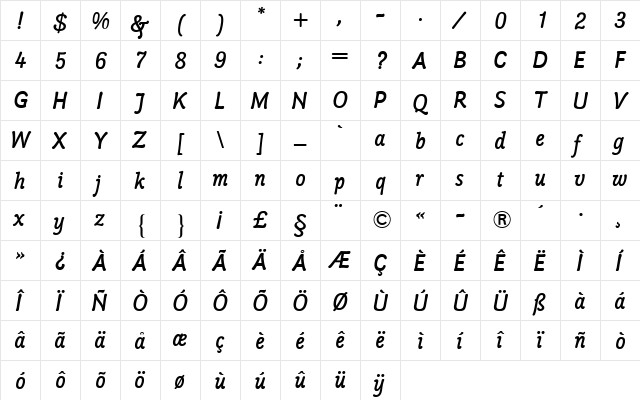
Poppl-College One BQ Medium
Design Context for Poppl-College One BQ Typeface
Poppl-College One BQ has the bold swagger of sports branding: strong, assertive letterforms designed to dominate headlines and jerseys alike.
A natural choice for gym brands, fantasy sports, jersey lettering, and action-driven headlines.
Font Pairing: Use alongside a condensed or geometric sans for supporting copy — keep the pairing bold, functional, and free of ornament.
Pro Tip: Use Poppl-College One BQ in all-caps headlines where its athletic energy can fully express itself. Pair with a solid, simple sans for supporting text.